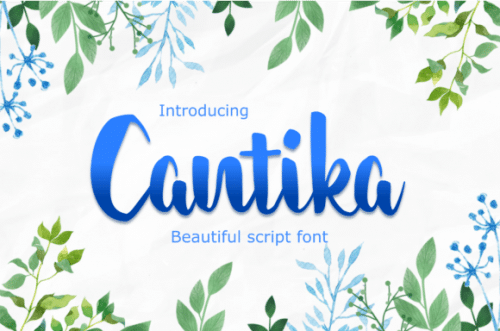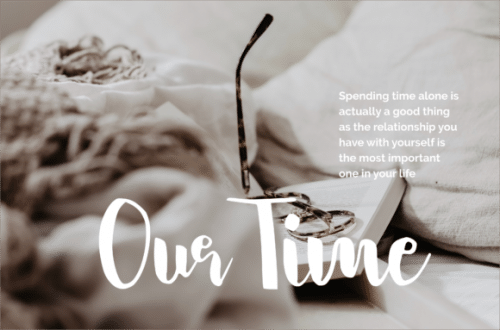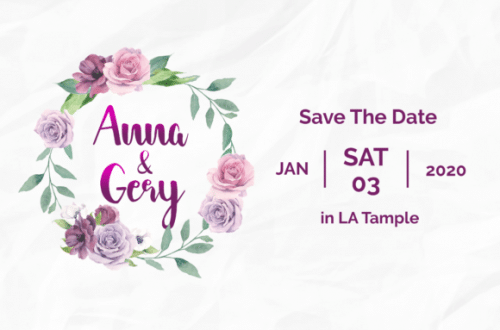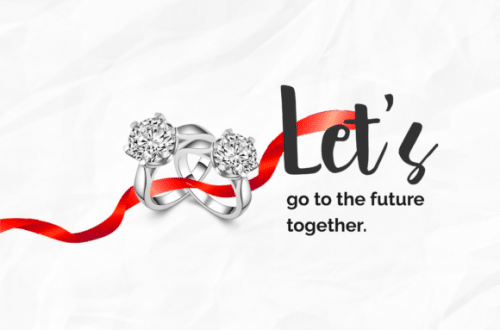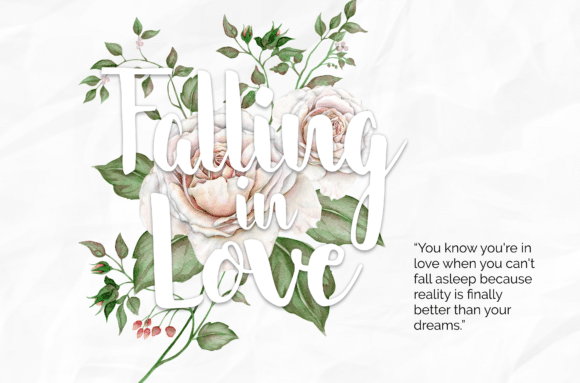
Cantika Font is a handpainted font, bold, fancy and fabulous. Can used for various purposes. such as titles, labels, newsletters, posters, signatures, logos, correspondence, wedding invitations, letterhead, signage, badges, etc.